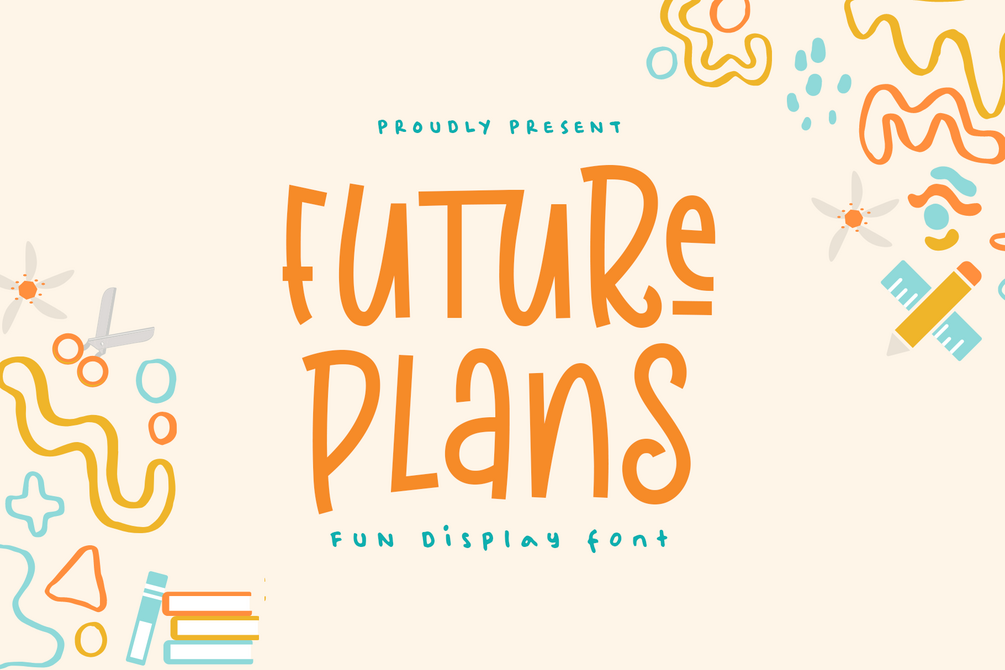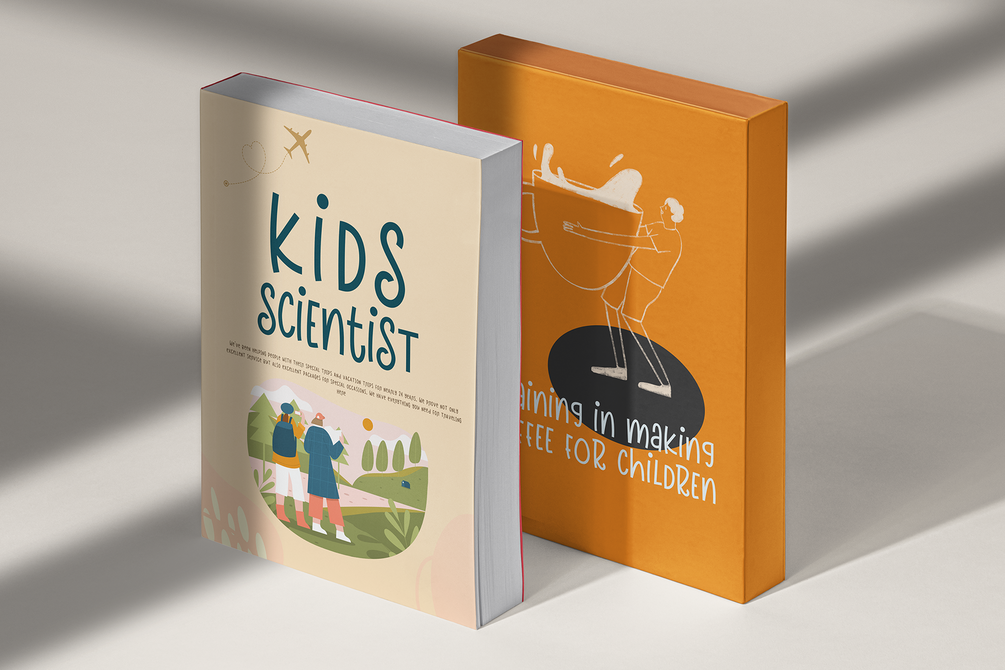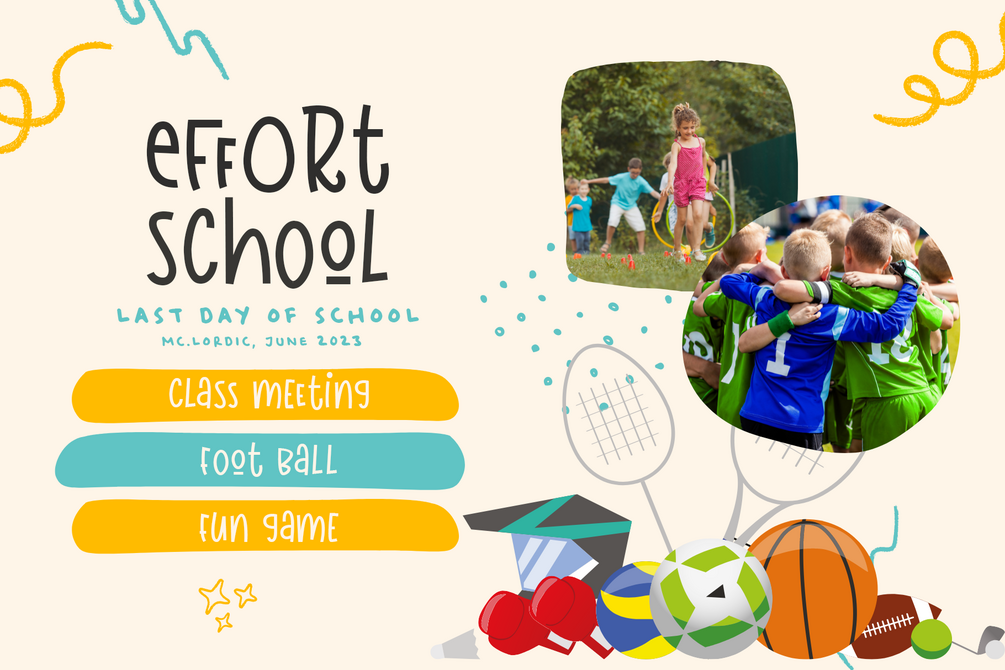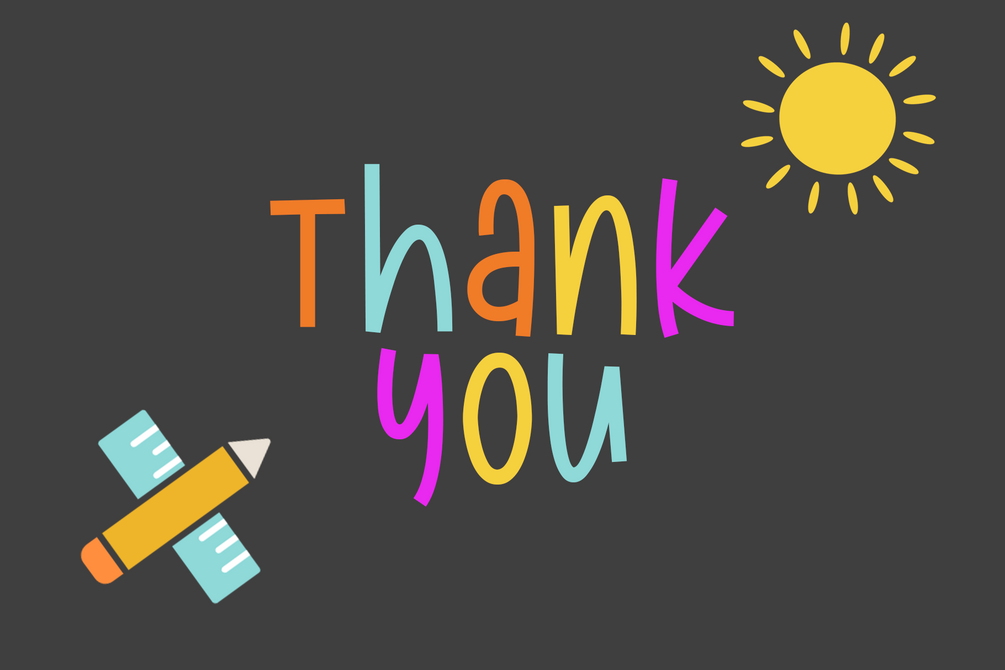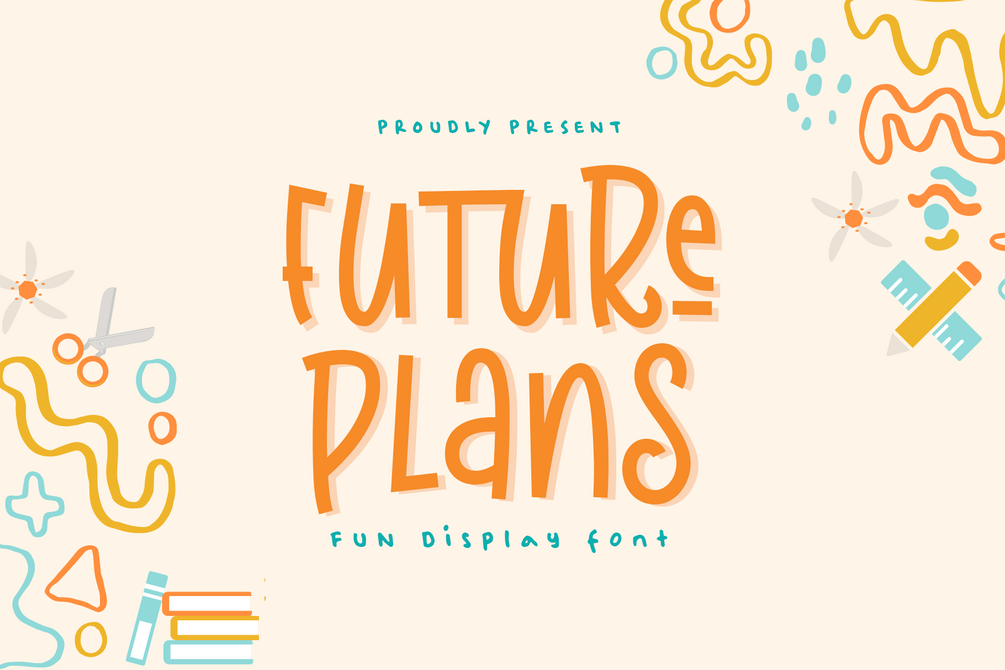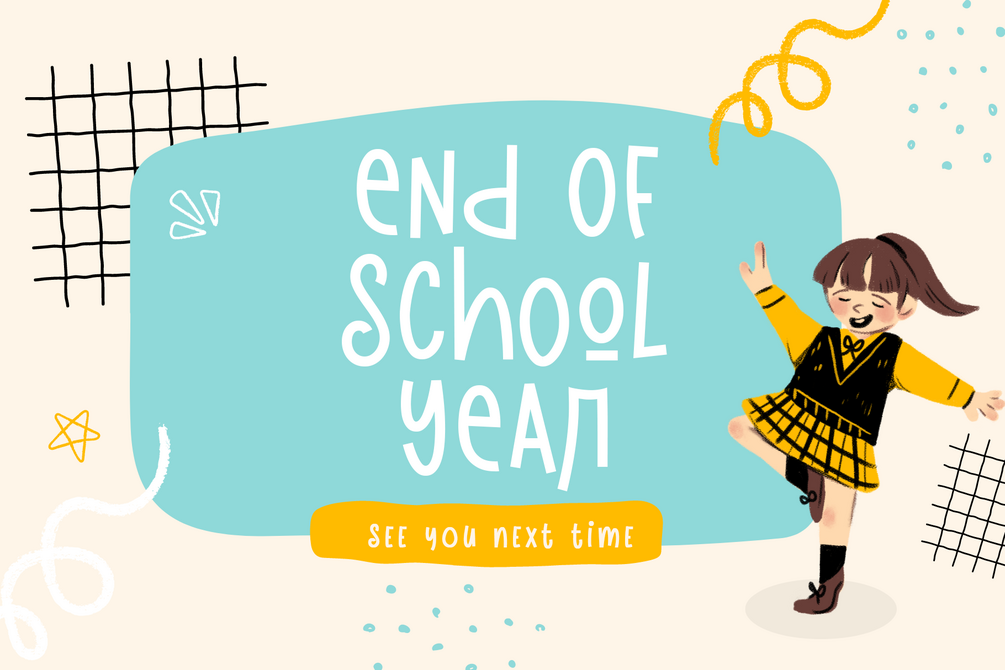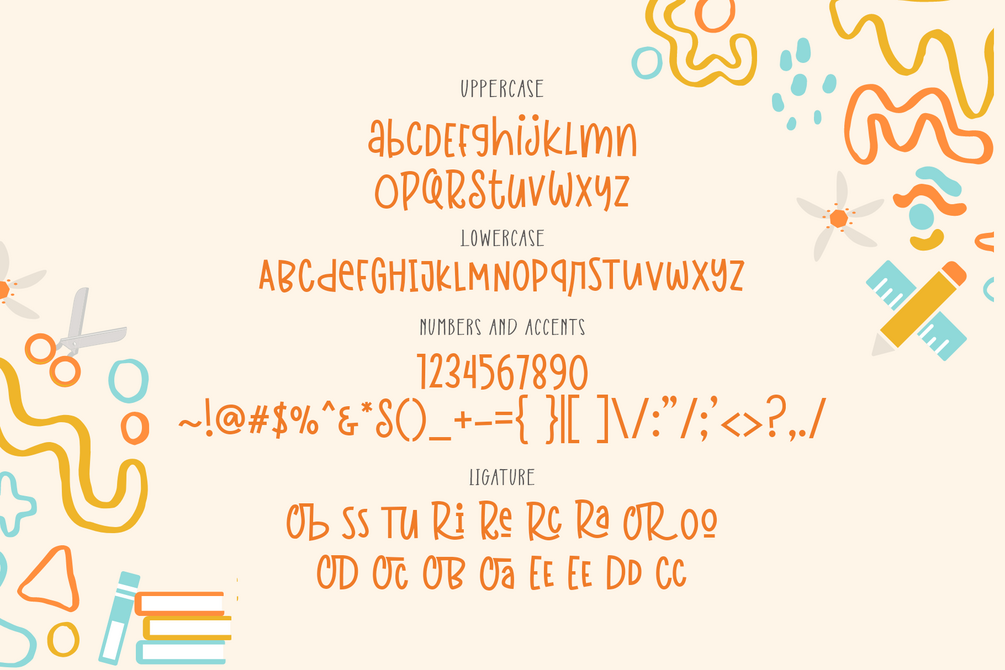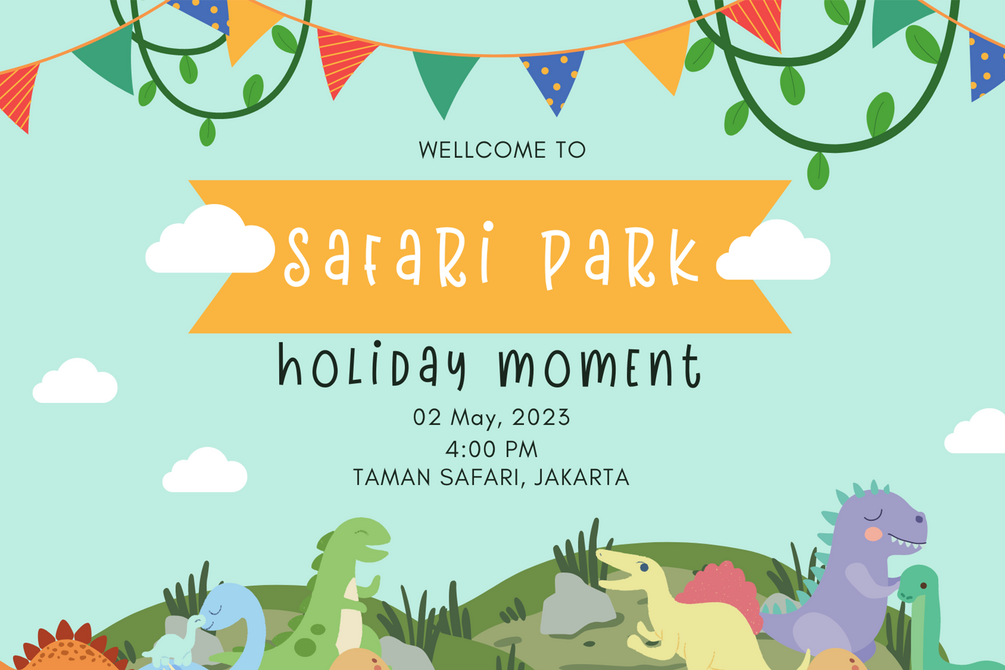
Future Plans
Future Plans is a lovely handwritten font featuring charming, playful characters that seem to dance along the baseline. Look simple with smooth character. This font is PUA encoded which means you can access all glyphs and ligature with ease!